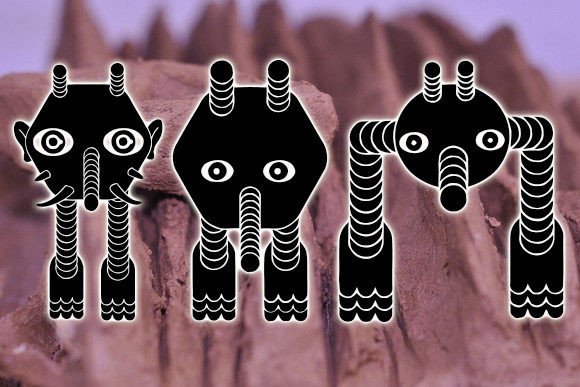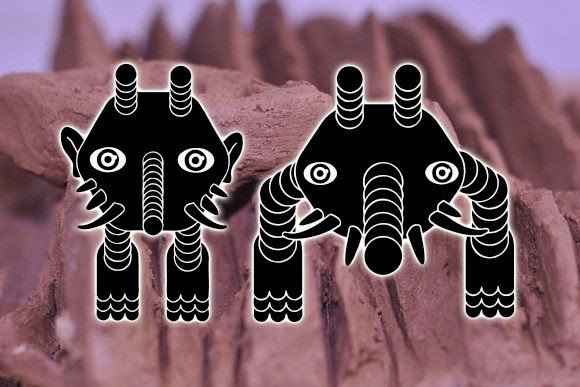
Introducing Figur Font: The Fun, Robot-Inspired Dingbat Font for Your Designs
Are you tired of using the same old fonts for your designs? Look no further! Figur Font is a fun, robot-inspired dingbat font that’s sure to add a touch of personality to any project. In this article, we’ll explore the features of Figur Font, its uses, and why it’s a must-have for designers and crafters.
What is Figur Font?
Figur Font is a dingbat font that features a collection of robot-inspired characters, including robots, gears, and other mechanical elements. The font is designed to be fun and playful, making it perfect for designs that require a touch of whimsy. With its unique and quirky characters, Figur Font is sure to stand out from the crowd.
Key Features of Figur Font
- Robot-inspired characters: Figur Font features a range of robot-inspired characters, including robots, gears, and other mechanical elements.
- Fun and playful: The font is designed to be fun and playful, making it perfect for designs that require a touch of whimsy.
- Scalable: The font is scalable, making it perfect for use on a variety of design materials, from posters to t-shirts.
Uses for Figur Font
Figur Font is a versatile font that can be used on a variety of design materials, including:
- Posters: Add a touch of personality to your posters with Figur Font’s fun and quirky characters.
- Flyers: Use Figur Font to create eye-catching flyers that will grab attention.
- T-shirts: Add a fun and playful touch to your t-shirt designs with Figur Font.
- Social media graphics: Use Figur Font to create engaging social media graphics that will stand out from the crowd.
Why Designers and Crafters Love Figur Font
Figur Font is a must-have for designers and crafters who want to add a touch of personality to their designs. Here are just a few reasons why:
- Unique and quirky: Figur Font’s robot-inspired characters are unique and quirky, making it perfect for designers who want to stand out from the crowd.
- Versatile: Figur Font can be used on a variety of design materials, from posters to t-shirts.
Tips for Using Figur Font
Here are a few tips for using Figur Font in your designs:
- Experiment with different colors: Figur Font looks great in a variety of colors, so don’t be afraid to experiment and find the perfect color for your design.
- Mix and match characters: Figur Font features a range of characters, so try mixing and matching them to create a unique look.
- Use it with other fonts: Figur Font pairs well with other fonts, so try using it with a bold font for a striking contrast.
Figur Font is a fun, robot-inspired dingbat font that’s perfect for designers and crafters who want to add a touch of personality to their designs. With its unique and quirky characters, ease of use, and versatility, Figur Font is a must-have for any designer looking to stand out from the crowd. So why not give it a try and see how it can take your designs to the next level?